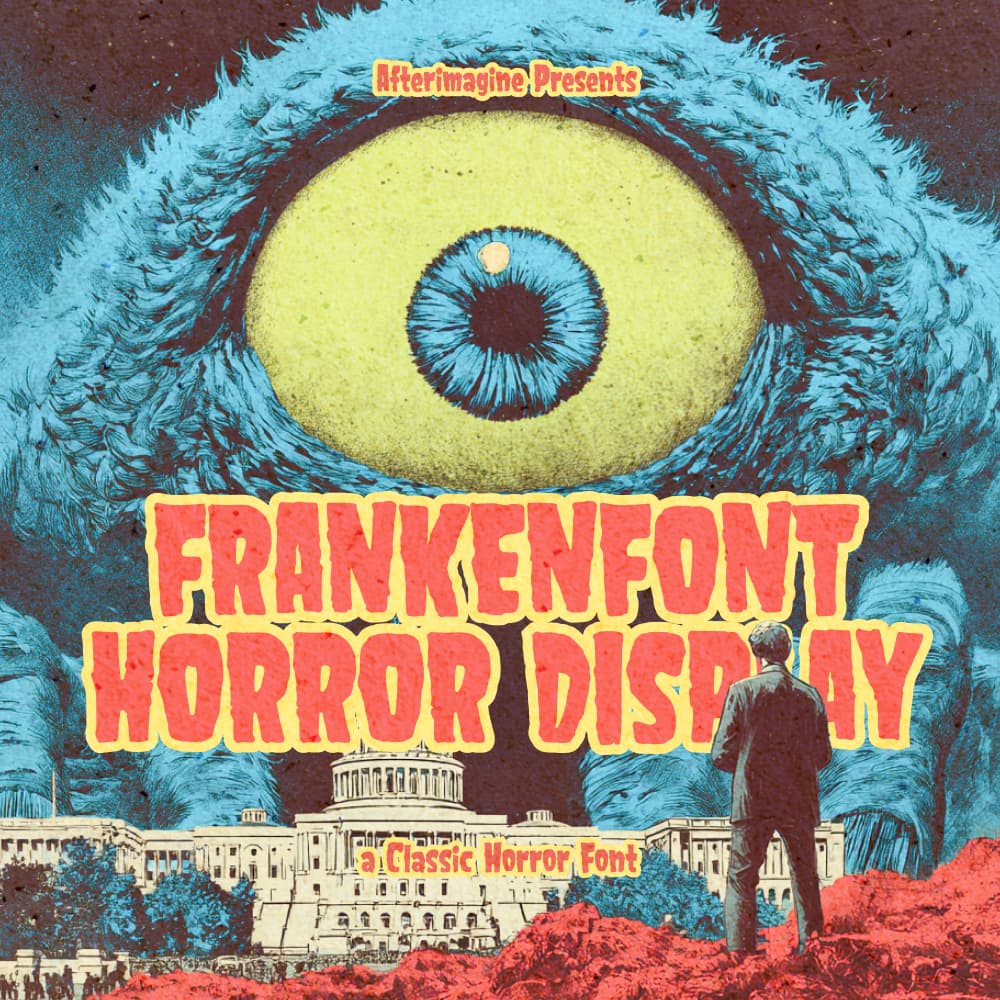
<p>Frankenfont is a bold horror display font inspired by classic monster movies and stitched typography aesthetics. Featuring jagged edges, irregular cuts, and spooky curves, it’s perfect for Halloween posters, horror movie titles, haunted house flyers, or any design that needs a creepy, stitched-up vibe.</p><p>The font comes in multiple formats for maximum compatibility across print and web projects.</p><p><strong>What’s inside?</strong></p><ul><li><p>OTF, TTF, WOFF2, WOFF, EOT</p></li><li><p>Uppercase & lowercase letters</p></li><li><p>Numbers & punctuation</p></li><li><p>Multilingual support</p></li></ul><p><strong><em>Important</em></strong><em>: Model images and photos are for presentation purposes only and are not included in the files.</em></p>